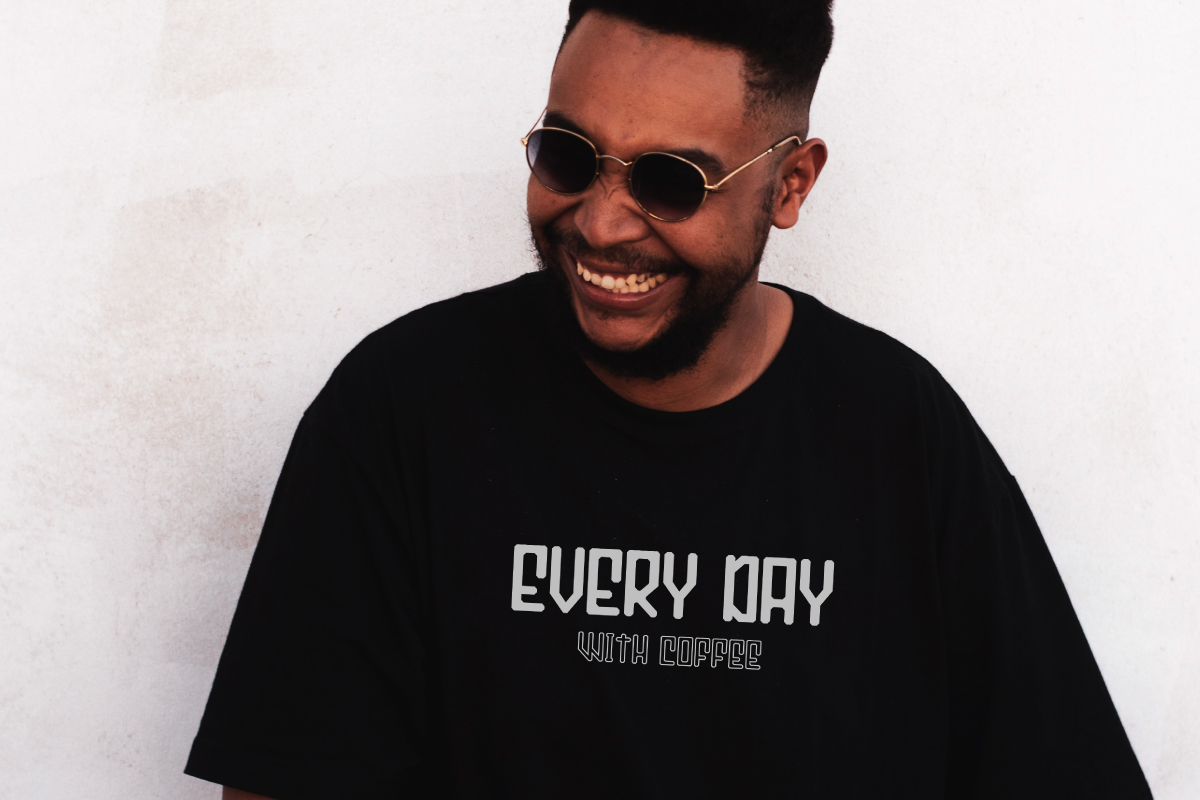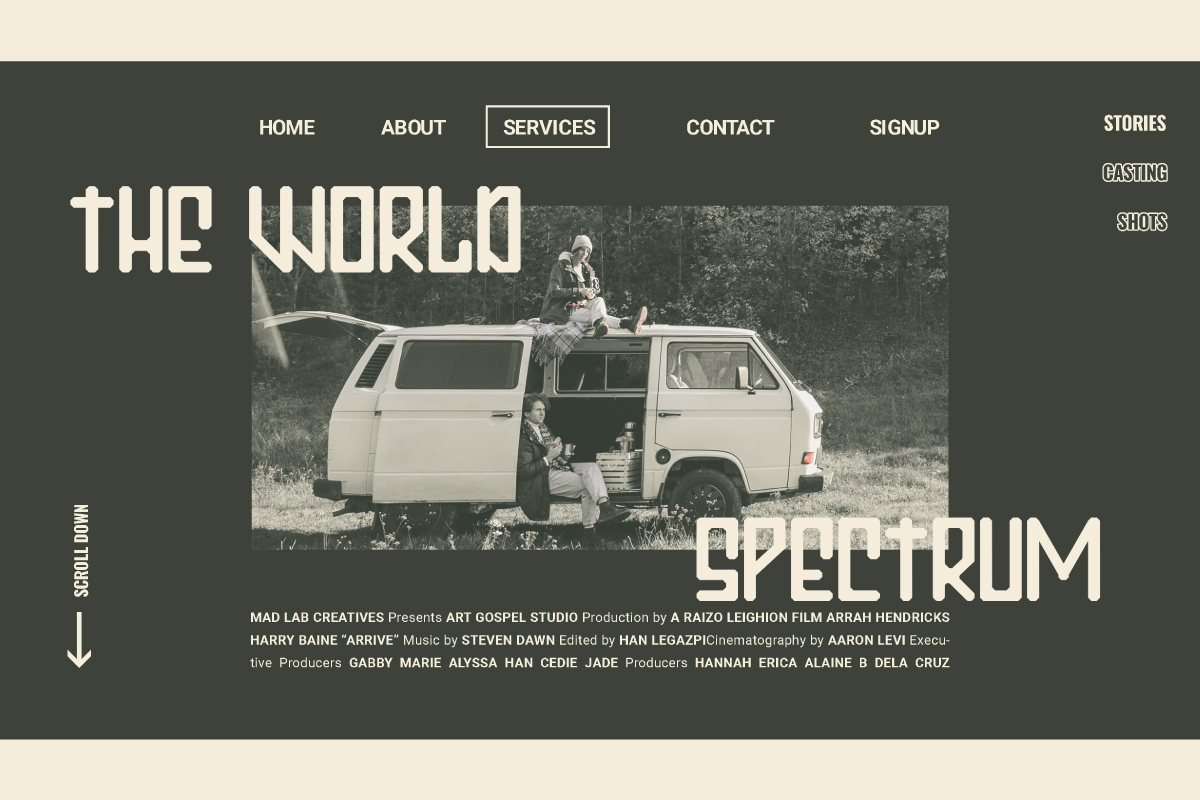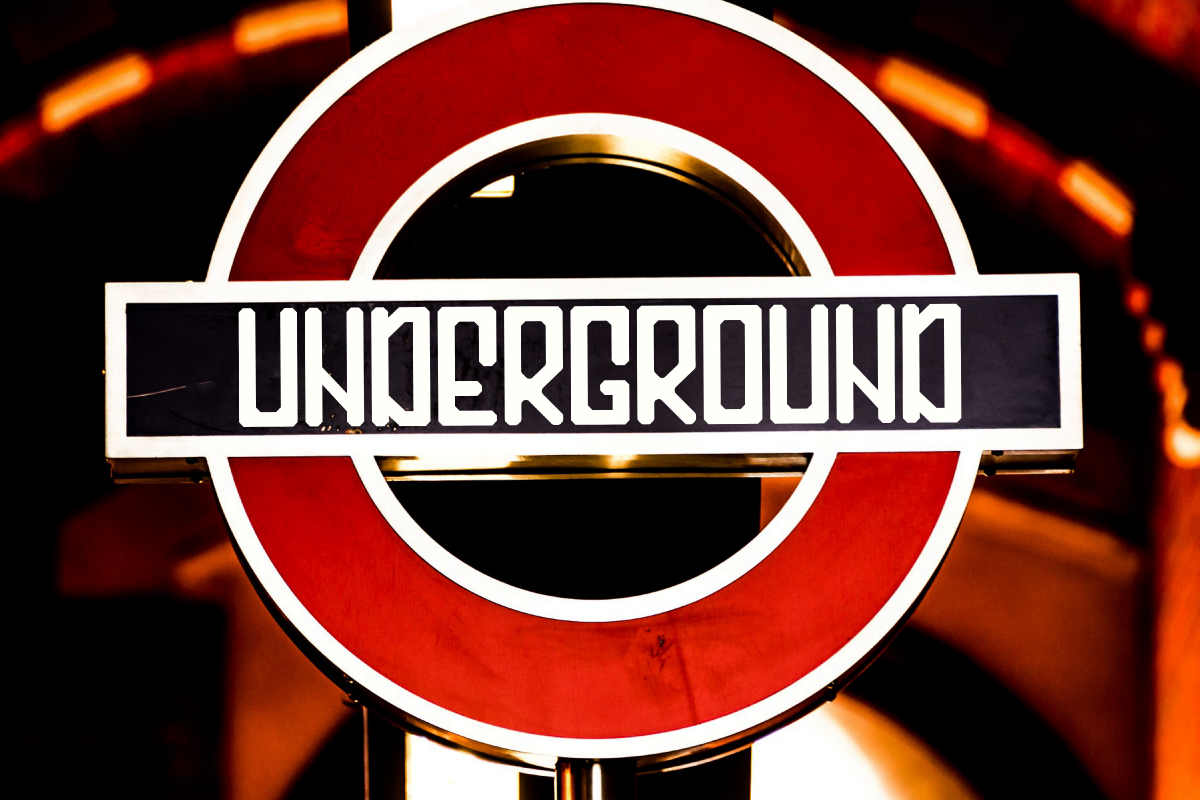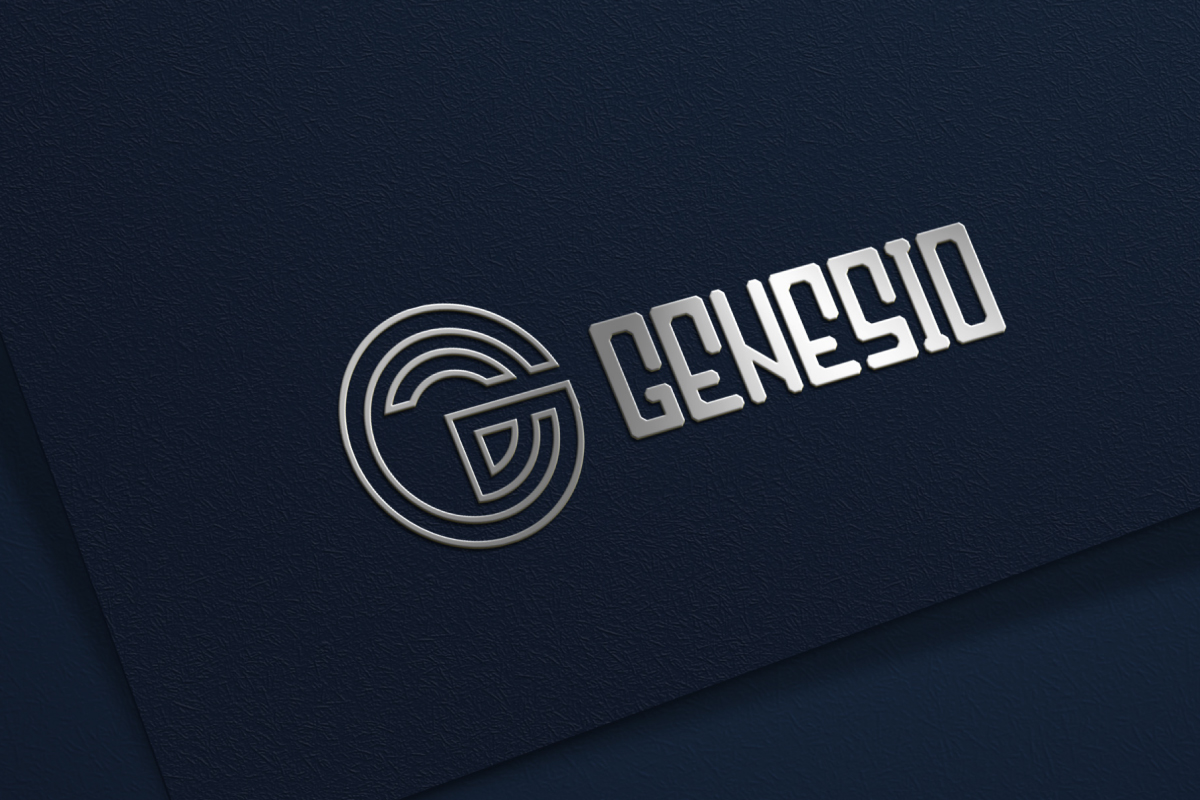
John Mike Font
John Mike Display Font
This is a modern sans serif font family with casual styles. The style of this font are modern, techno, minimal, casual, simple etc. Great for logo, brandings, headlines, signage etc. John Mike Font come with special characters that will make your designs standout. The font will be awesome for many industries including : company. promotion, techno, games, movies etc